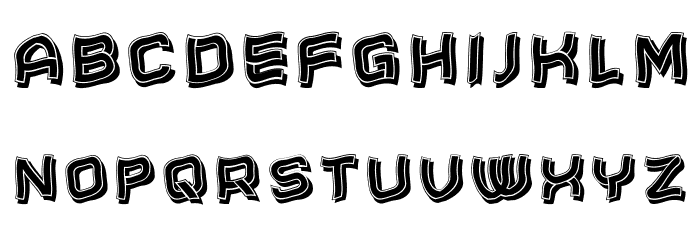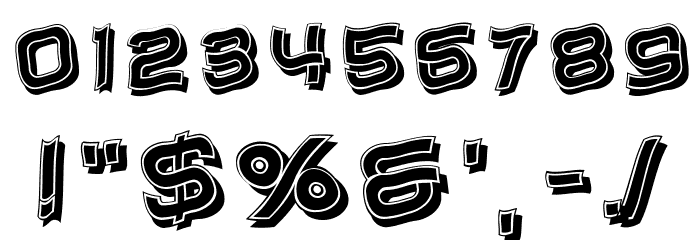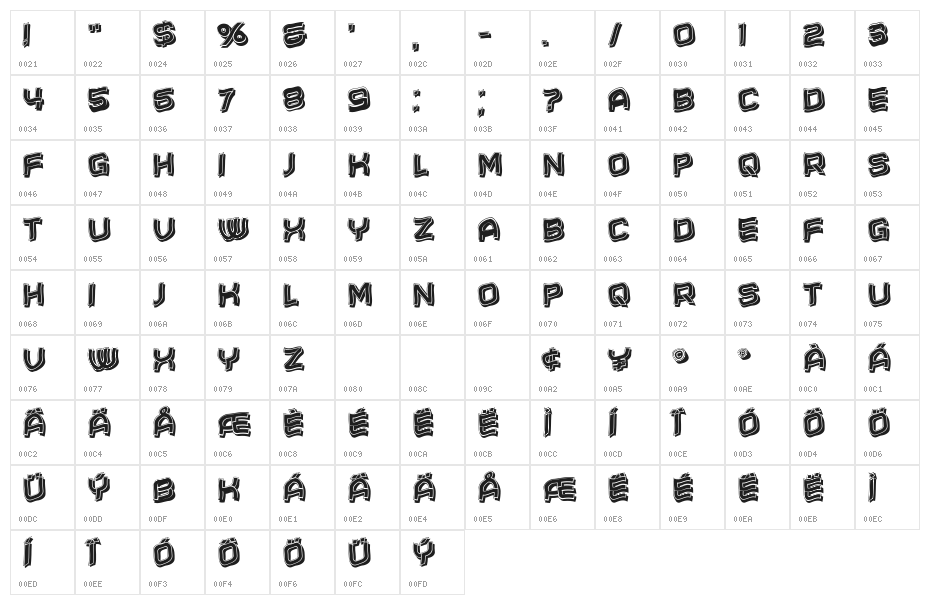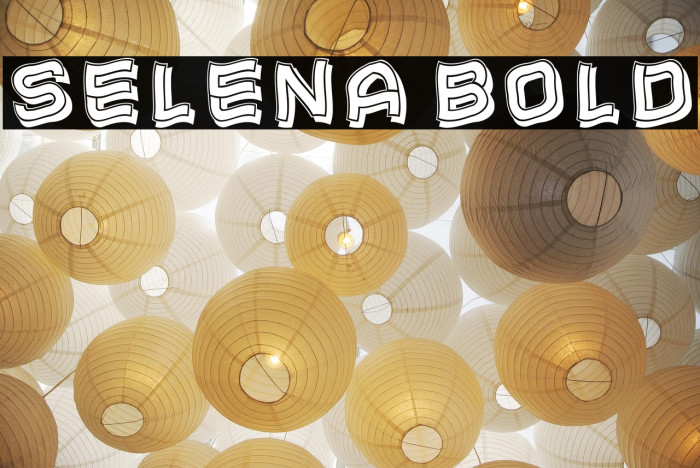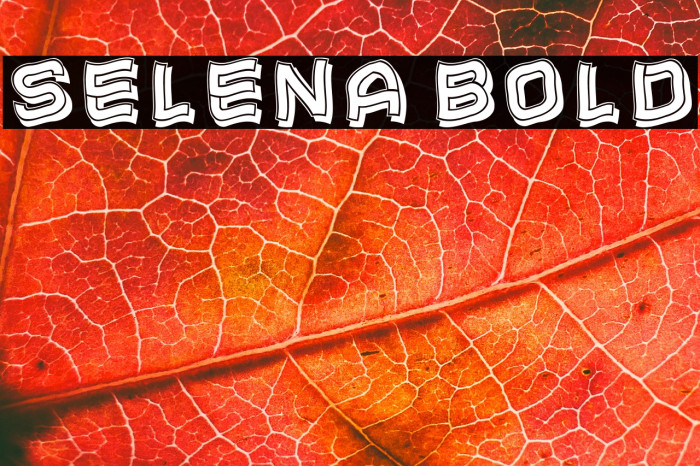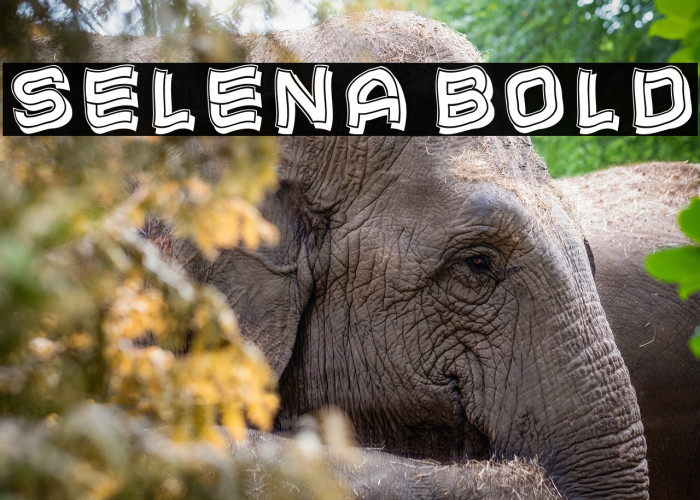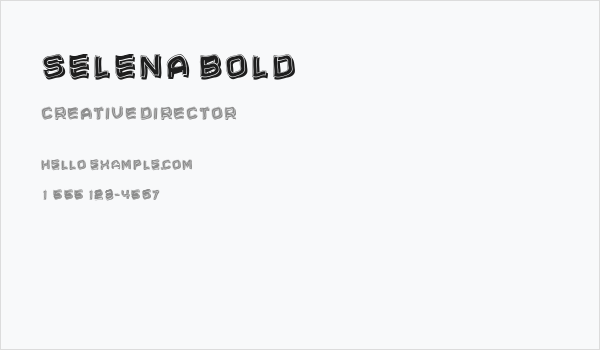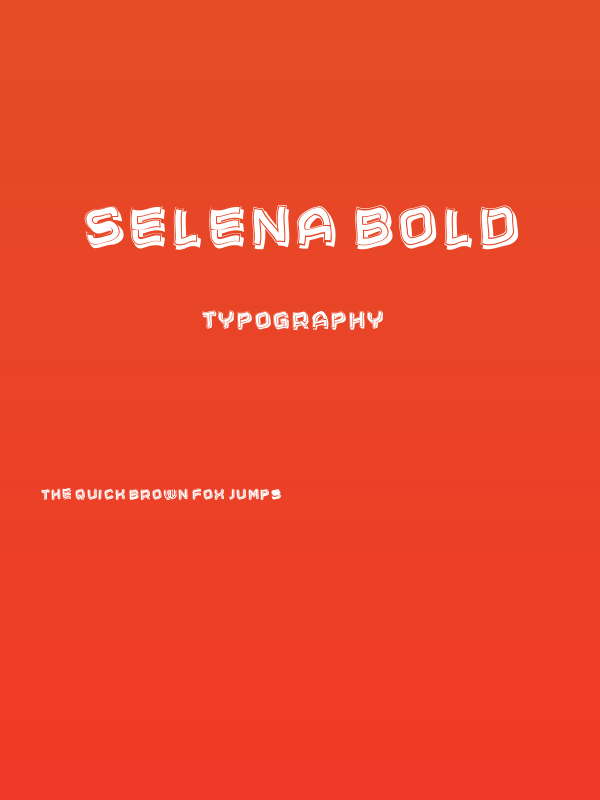
Selena Bold Font
This font features a bold, three-dimensional appearance with a strong, shadowed outline that gives it a striking and dynamic look. The characters are uppercase and lowercase, with numerals and a selection of special characters. Each letter has a playful, slightly retro style, with rounded edges and a sense of movement. The boldness of the font makes it highly visible and attention-grabbing, suitable for making a statement. The shadow effect adds depth, making it ideal for designs that require a sense of layering or texture. The font's playful yet bold nature makes it versatile for various creative projects.
A bold, three-dimensional font with a playful, retro style and shadowed outline.
- Proposed Projects: Ideal for posters, headlines, logos, and any design requiring a bold, eye-catching font with a playful touch.